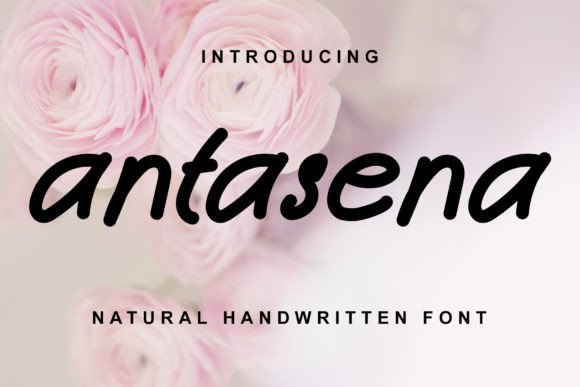
Unleash the enchanting allure of Antasena Font, a script font family that captivates with its graceful curves and elegant lines. Designed by the masterful Bahrul Studio, this font is a symphony of artistry, evoking a sense of luxury and sophistication that will elevate your designs to new heights.
Immerse yourself in the beauty of Antasena's italic style, a testament to the font's delicate and alluring charm. With Antasena, your words will dance across the page, captivating your audience with their refined and graceful aura.
Antasena's versatility knows no bounds, making it the perfect choice for a wide range of projects. From t-shirts and clothing designs to logo names and company store names, Antasena adds a touch of elegance and sophistication to every creation. Unleash your creativity and explore the possibilities with this versatile font.
Step into the world of entertainment and let Antasena's charm shine through in video films and magazine titles. Its flowing lines and impeccable style will draw viewers into your stories, leaving them spellbound by the beauty of your creations.
In the realm of digital products, Antasena emerges as a game-changer. Its intricate details and captivating presence will set your products apart, ensuring they stand out from the crowd. Whether it's wedding invitation cards, business cards, or product packaging, Antasena adds a touch of luxury and refinement that will leave a lasting impression.
With Antasena, your designs will transcend the ordinary and enter the realm of the extraordinary. Its enchanting aura will captivate your audience, leaving them mesmerized by the beauty of your creations. Embrace the power of Antasena and let your designs shine with elegance, sophistication, and an allure that will leave them breathless.